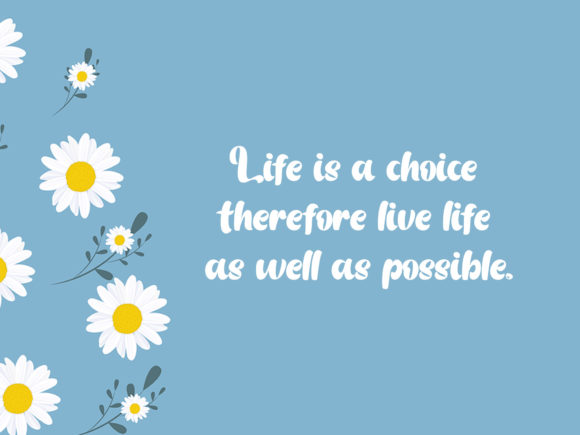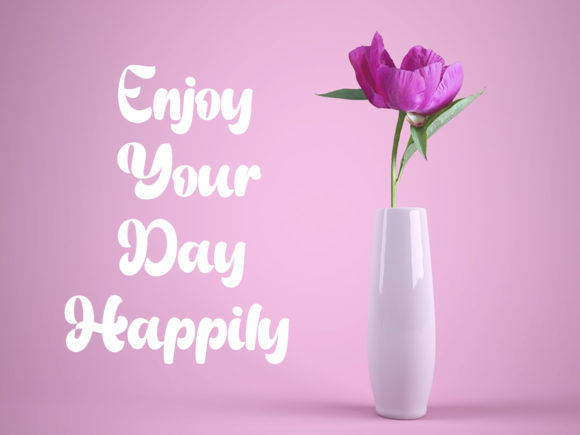
Black Shark Font
db-ku.com - Script & Handwritten -- Black Shark is a unique and retro looking handwritten font that was crafted with great care to produce the expected results. This font can be used to write titles, invitations, letters, and various other types of informal products.